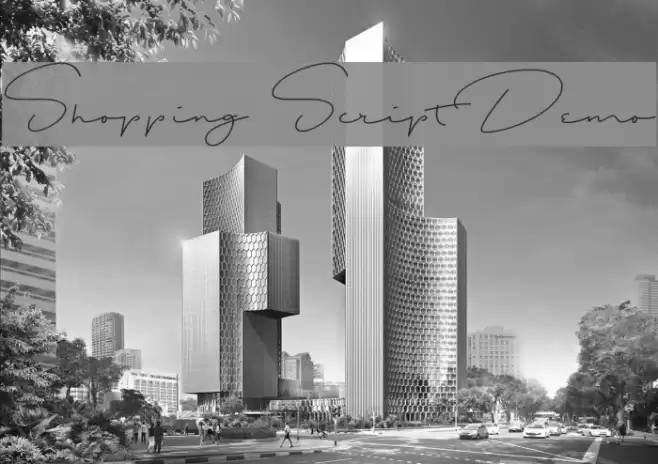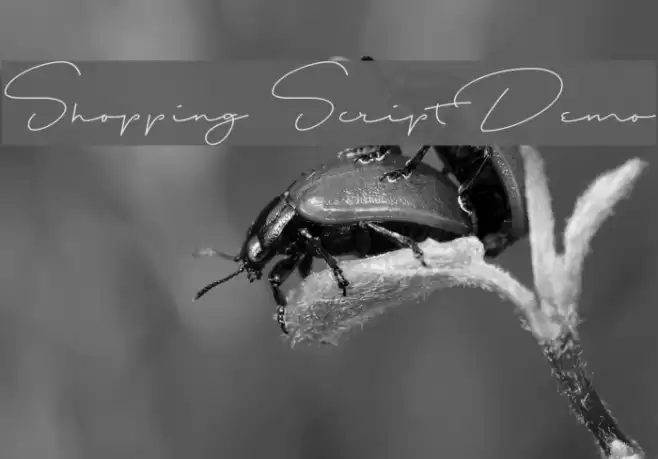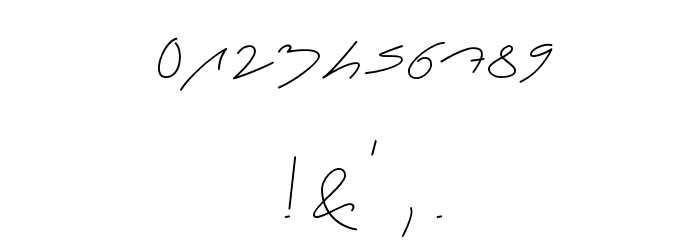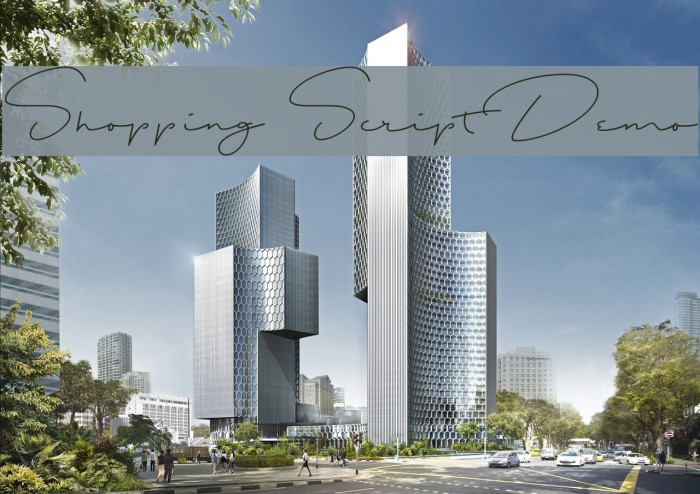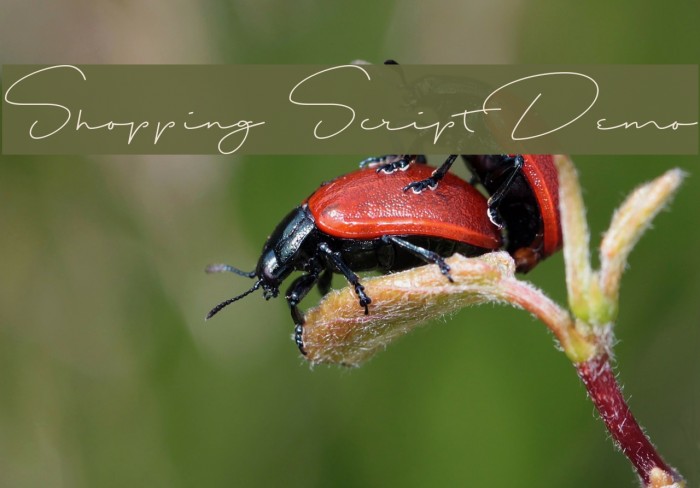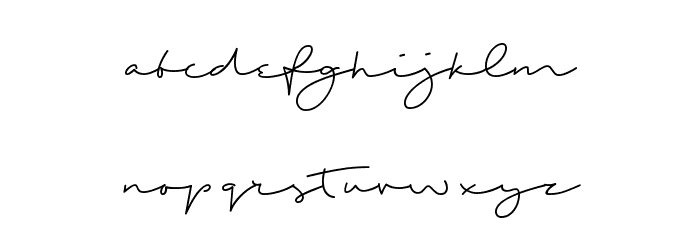
Shopping Script Demo Font
Shopping Script Demo Description
This font features a flowing, cursive style that mimics elegant handwriting. The letters are connected, creating a seamless and fluid appearance. The uppercase characters are slightly larger and more elaborate, while the lowercase letters maintain a consistent, smooth flow. The numerals and special characters are designed to match the script's overall aesthetic, with gentle curves and a refined look. This font exudes a sense of sophistication and personal touch, making it ideal for projects that require a handwritten feel.
A flowing, cursive script with elegant, connected letters from Handwritten fonts.
- Proposed Projects: Ideal for wedding invitations, personal branding, greeting cards, and elegant stationery.
- Overall Style: Elegant, Handwritten
- Use Case: Logos, Invitations, Personal Branding